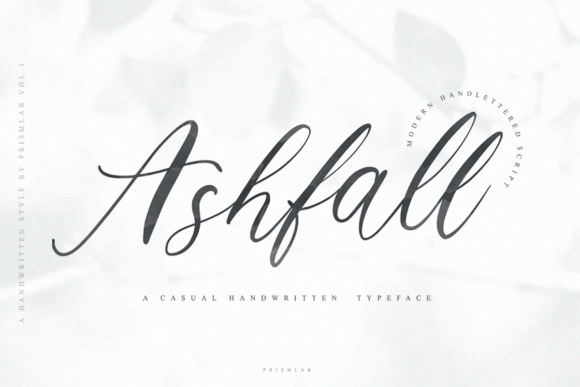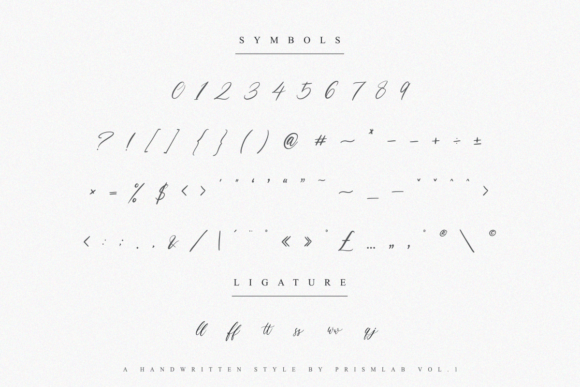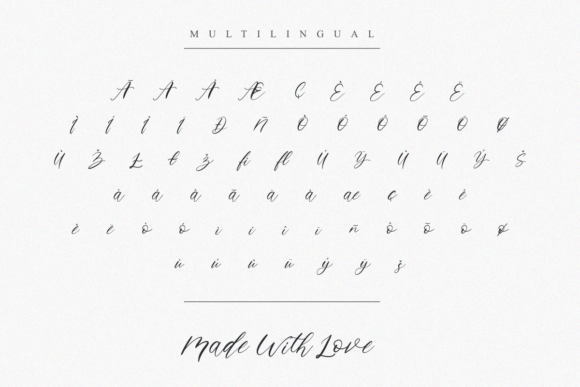
About Ashfall Font
Ashfall is a delicate and elegant handwritten font. Its distinct and well balanced letters make this font a masterpiece. Fall in love with its incredibly versatile style and use it to create spectacular designs!